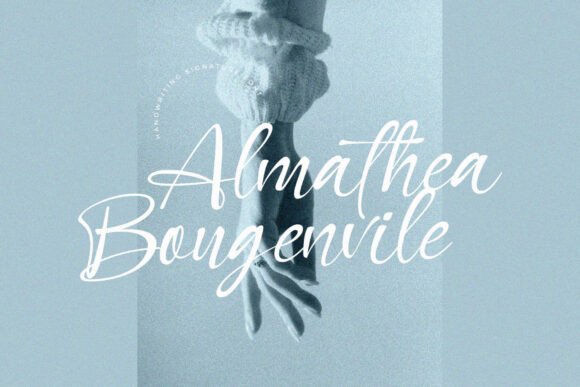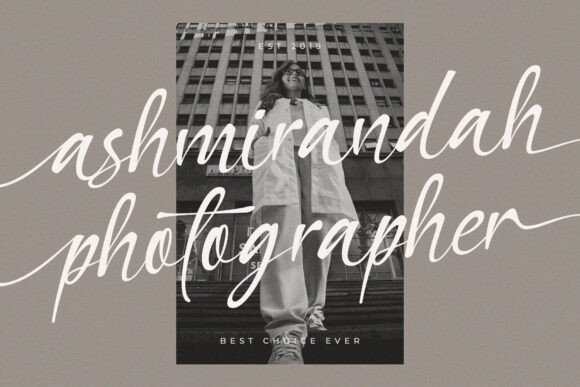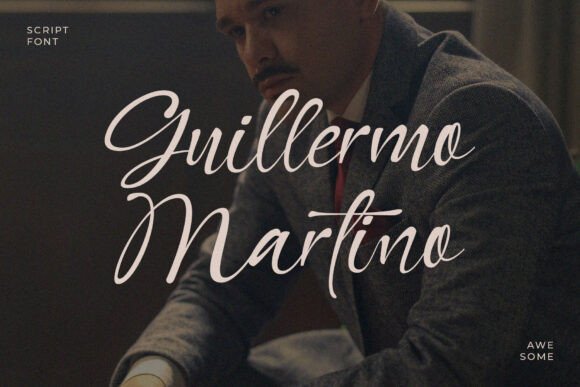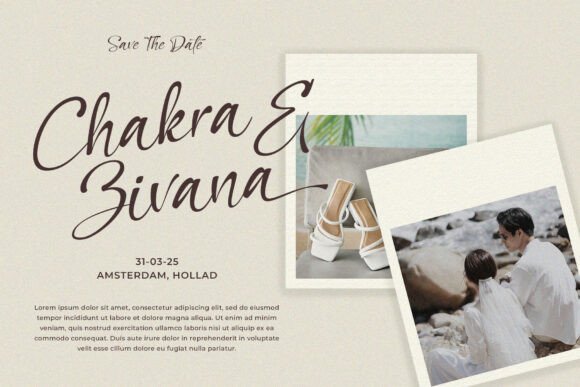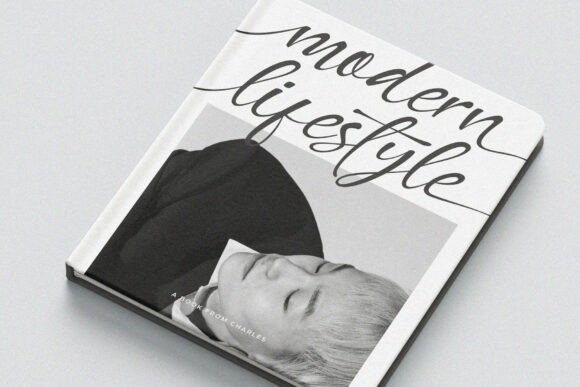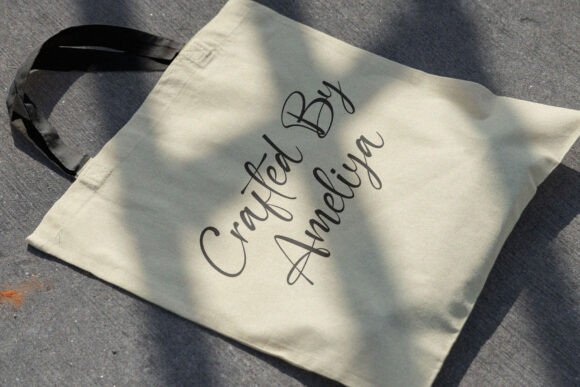
Introduction to Qallies Font
There’s nothing quite like the rush of creativity that comes when you’re working on a new project. You’re pouring over design concepts, trying to find the perfect combination of style and substance. And then, it hits you – the perfect font. The one that brings your vision to life and elevates your entire design. For many designers, that moment is all about finding the right handwritten script to add a touch of elegance and sophistication to their work.
Enter the Qallies Font, a stunning new addition to the world of design resources. This beautiful script font is more than just a pretty face – it’s a powerful tool that can take your creative projects to the next level. With its high-quality design and versatile style, Qallies Font is the perfect choice for designers looking to add a touch of sophistication to their work.
Key Features of Qallies Font
- High-quality design for creative projects with a transparent background, making it perfect for various applications.
- Unique characteristics: The Qallies Font features a modern, minimalist design with a subtle flair, making it perfect for creative projects that require a touch of elegance.
- Design resource for digital artists, graphic designers, and typographers looking for a high-quality font to enhance their work.
Honest Review: Qallies Font
I recently stumbled upon the Qallies Font, a free download that caught my eye for its unique style and high quality design. As a designer, I was excited to dive in and see if it would be a valuable addition to my creative project resources.
Here are some pros that stood out to me: ✨ The Qallies Font is incredibly versatile, suitable for a wide range of design applications from digital to print. ✨ Its transparent background makes it easy to layer over other elements without any issues. ✨ Additionally, the font is available for free download, making it a fantastic resource for designers on a budget.
However, I did encounter a few limitations: ⚠️ The Qallies Font may not be the best choice for very small text sizes, as the strokes can become somewhat blurry. ⚠️ Additionally, some users may find the font’s style a bit too playful for certain design projects.
Overall, I was impressed with the Qallies Font and would recommend it to designers looking for a high-quality, free download to add to their design resource library.
The Qallies Font is suitable for a variety of design projects, including logos, branding materials, and digital graphics. Its high-quality design and transparent background make it an ideal resource for designers looking to create unique and engaging designs.